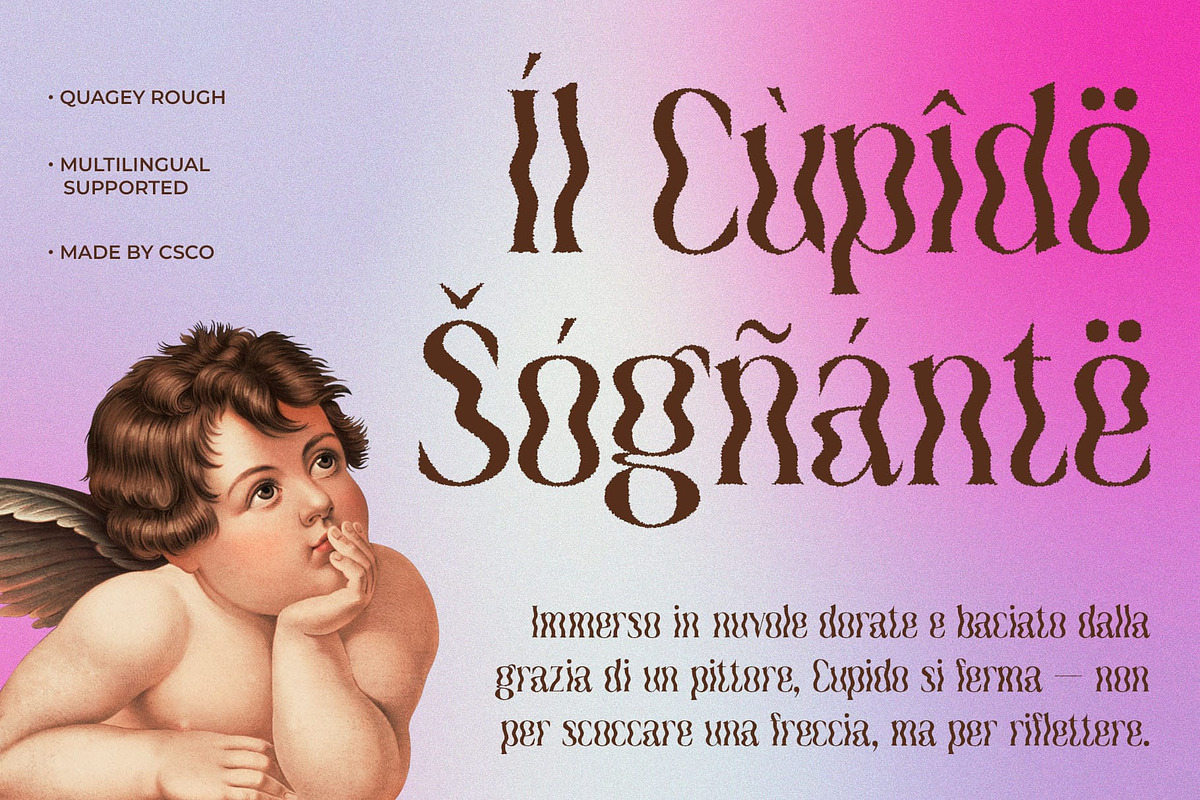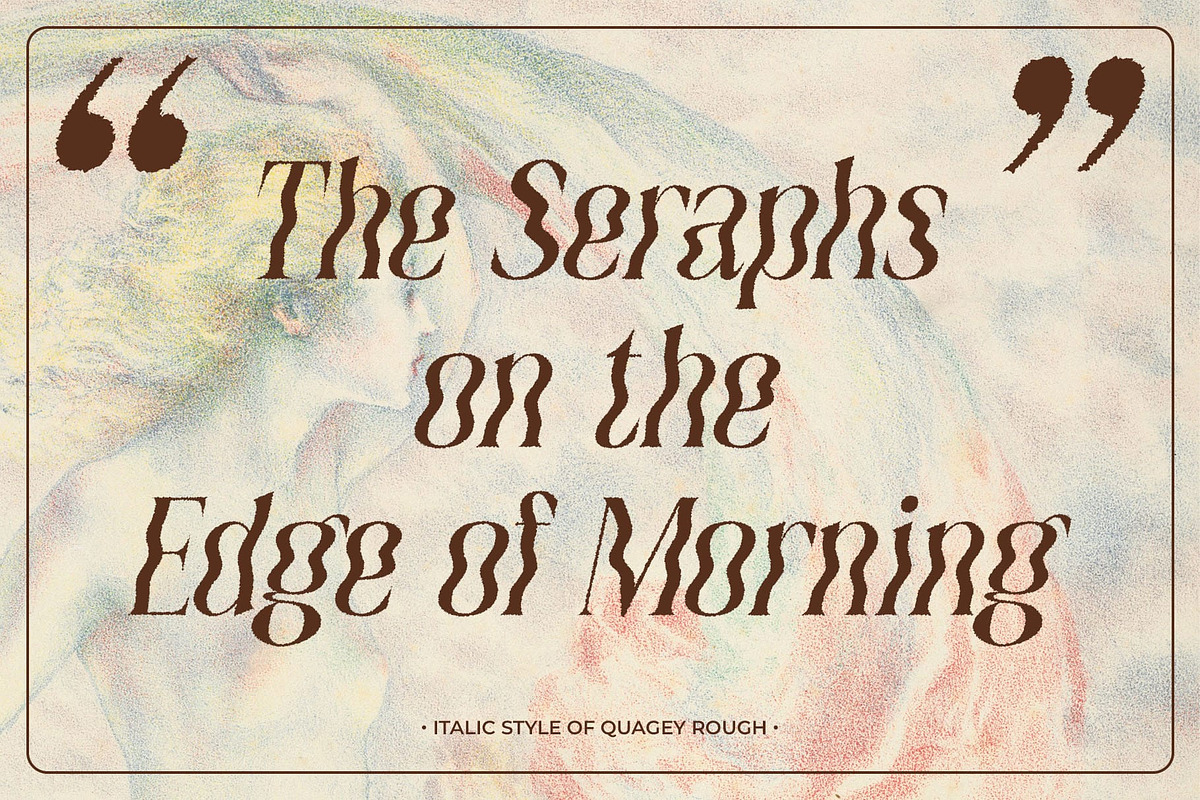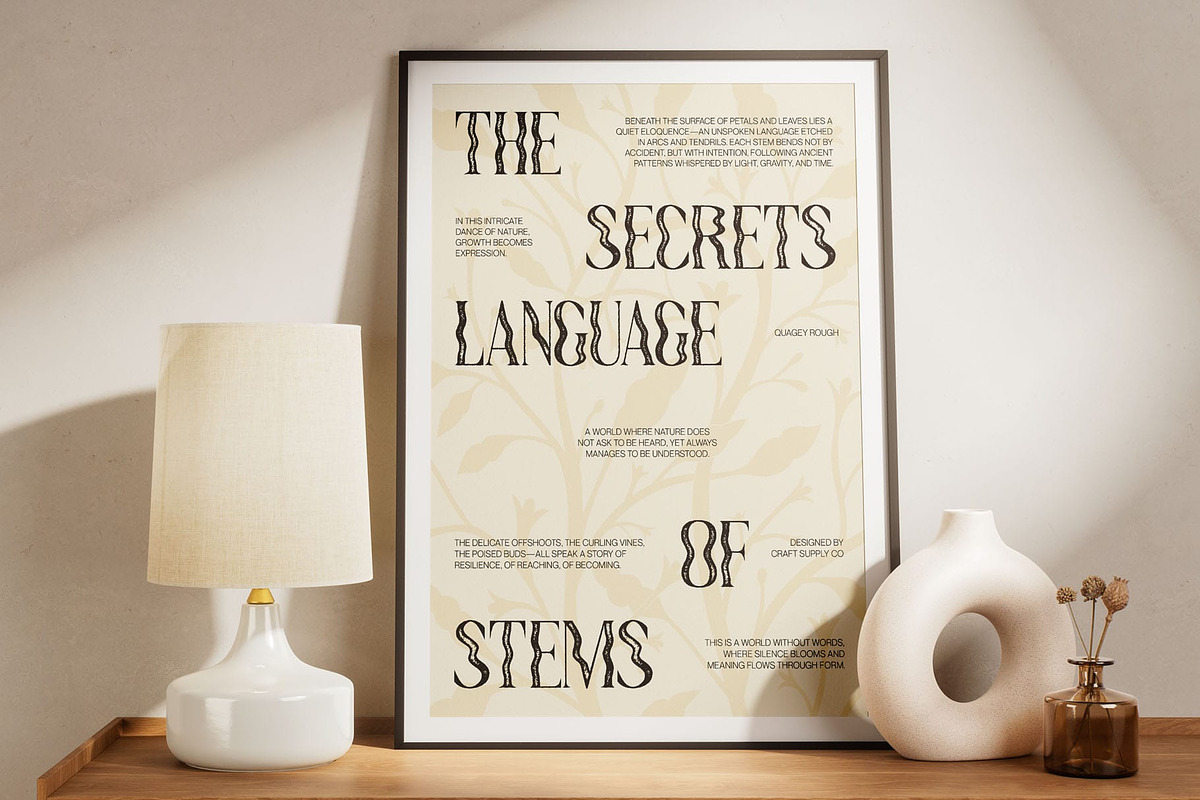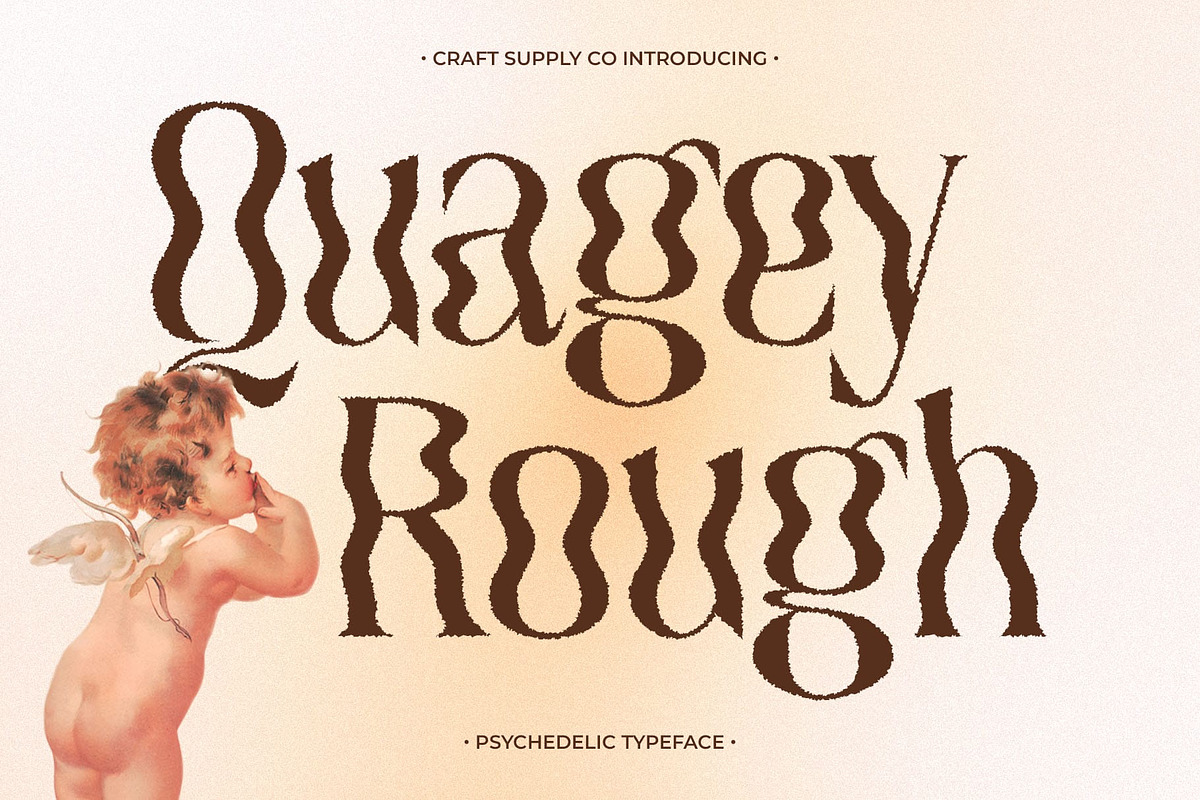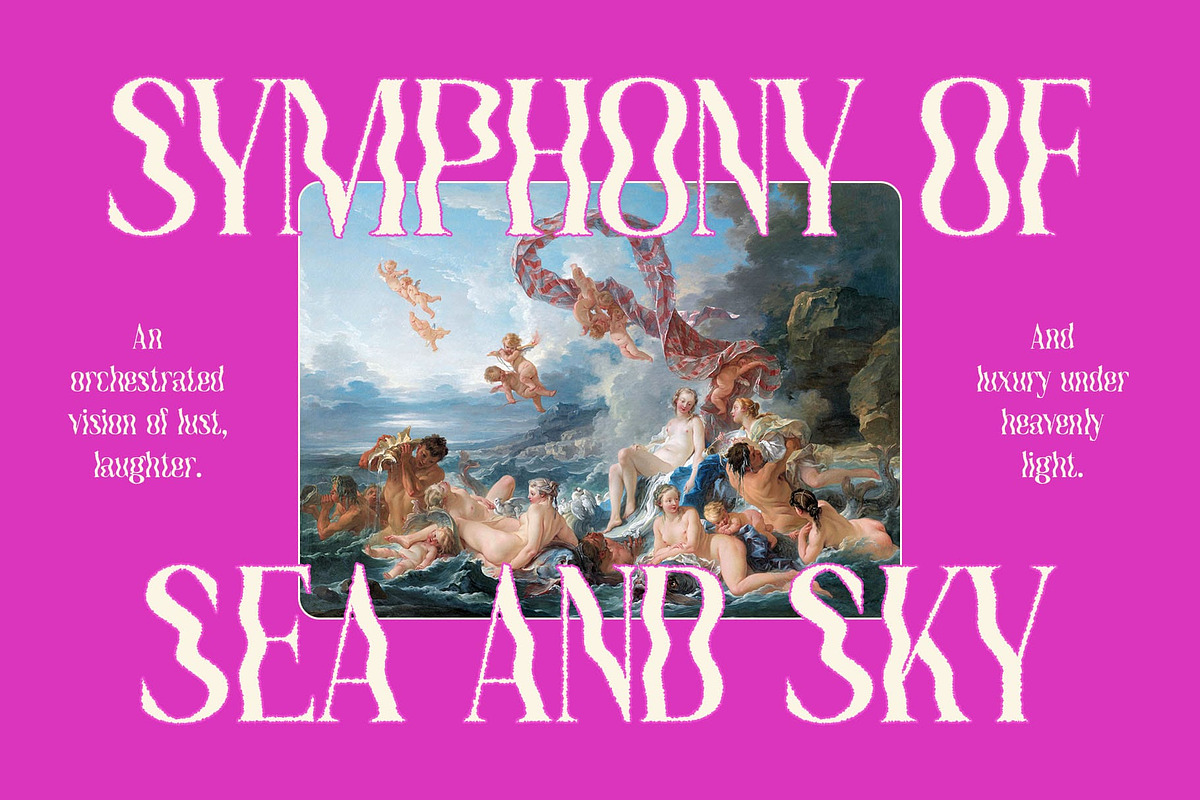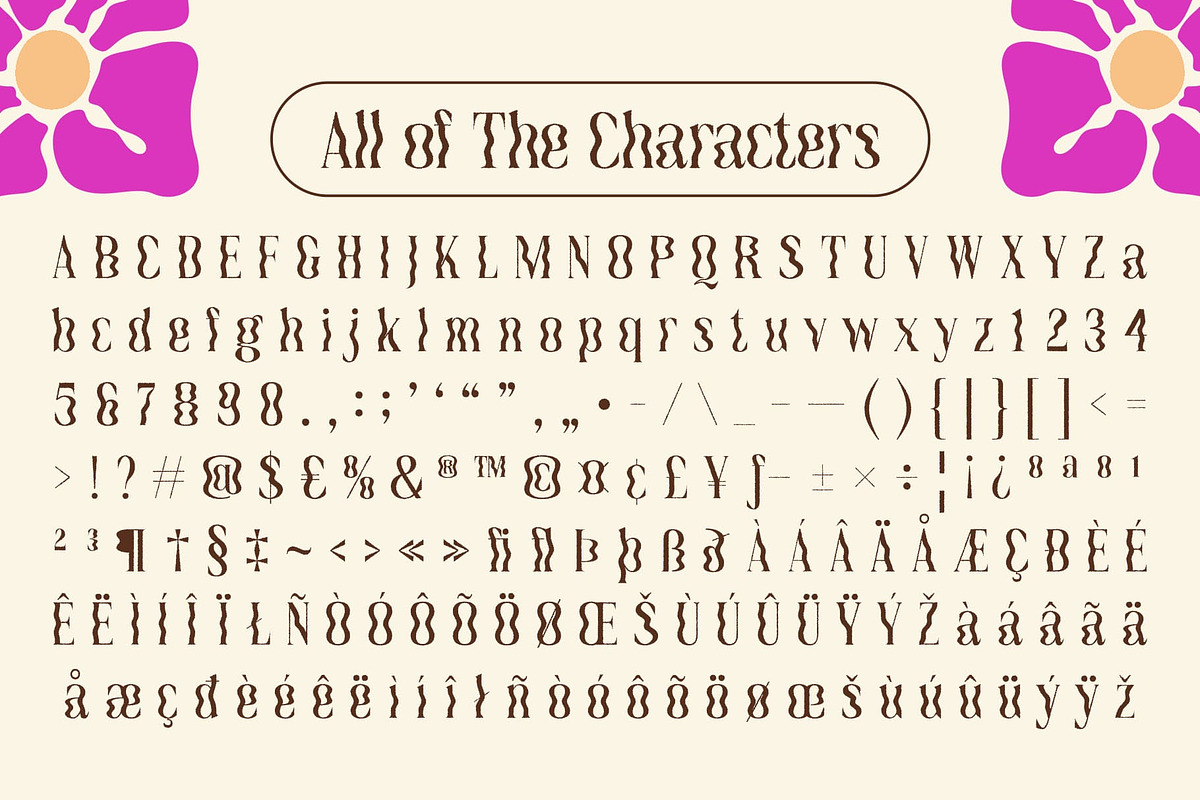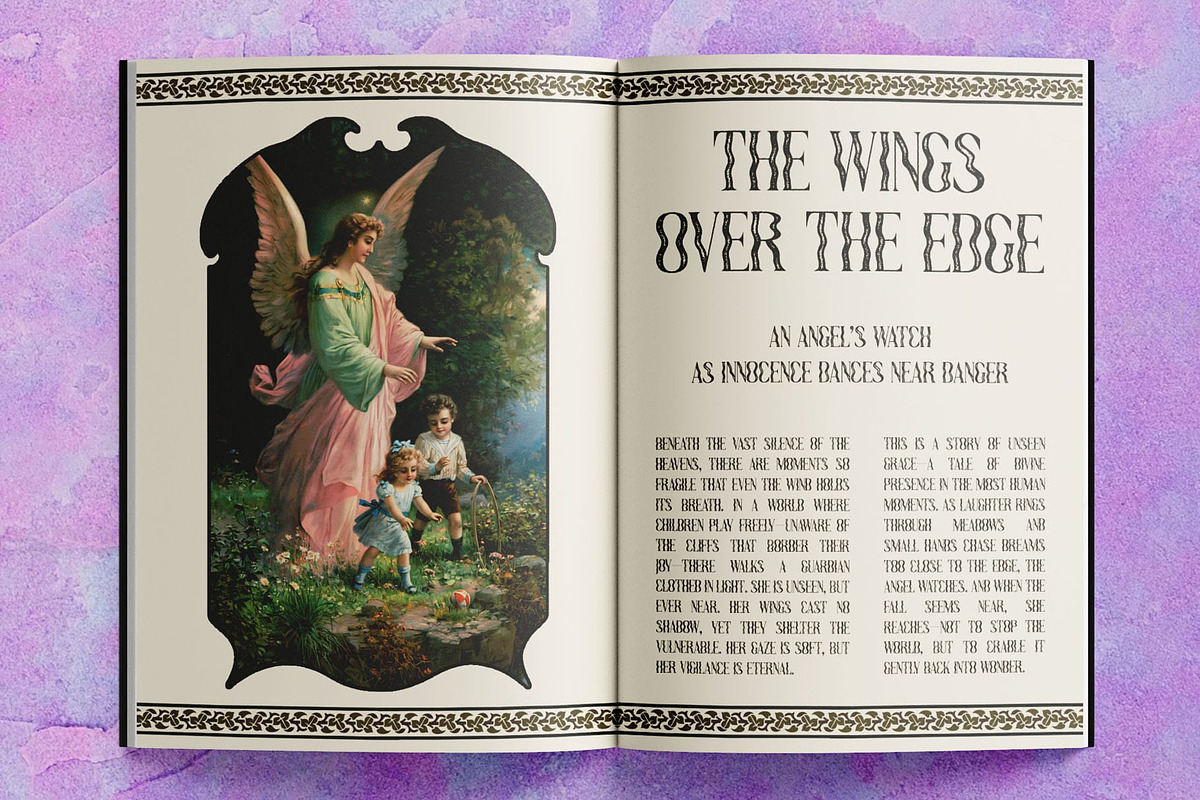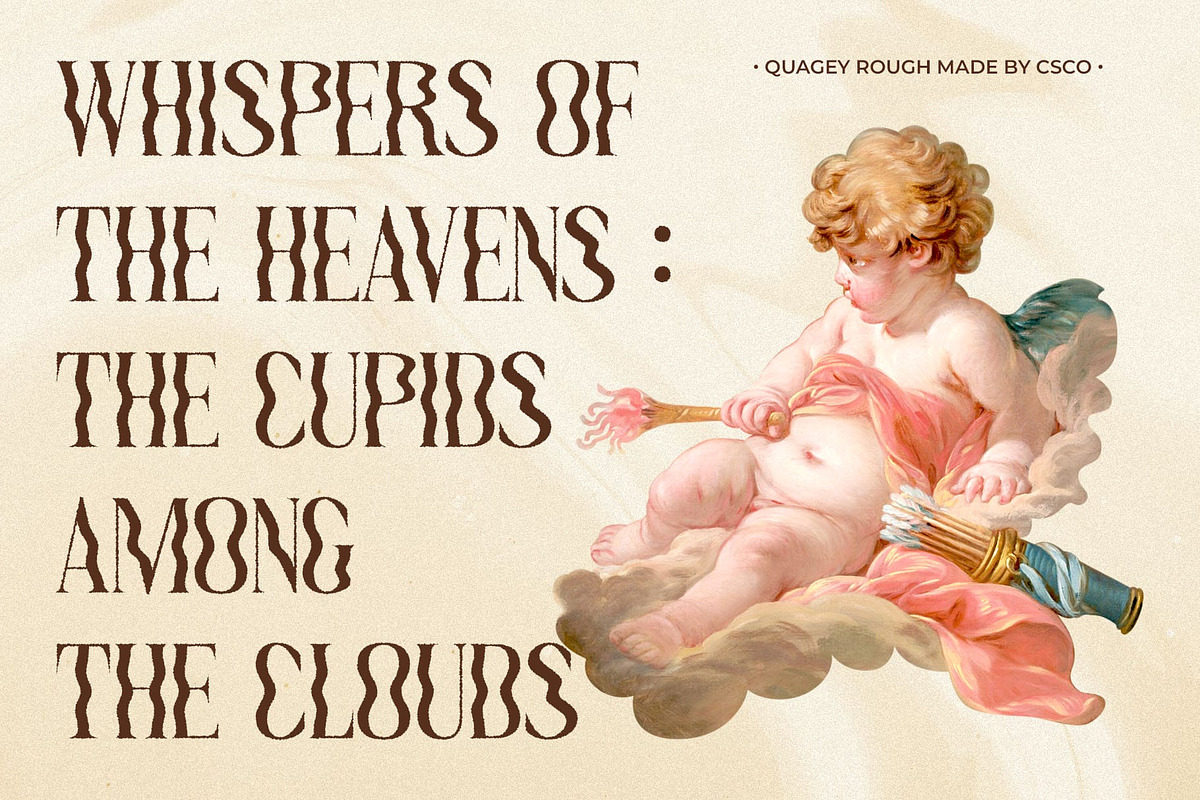
Quagey Rough
Quagey Rough Font – A Psychedelic Display Font with Gritty, Funky Energy
Psychedelic Display Font with Funky Vibes Quagey Rough is a psychedelic display font infused with funky flair and a raw, artistic attitude. Its design embraces the unexpected—featuring warped, irregular letterforms that twist and pulse with rebellious energy. Drawing inspiration from 1960s psychedelia and underground poster art, this font brings a sense of freedom, creativity, and movement to any visual composition.
Rough Texture for Bold Artistic Expression The defining feature of Quagey Rough is its gritty, hand-textured surface. This rough effect adds a tactile, imperfect charm that makes each letter feel authentic, handcrafted, and full of character. It’s a perfect match for designs that embrace distortion, rebellion, and raw visual storytelling, delivering a powerful aesthetic that’s both nostalgic and experimental.
Designed for Eye-Catching, Expressive Projects Whether you’re designing music posters, retro-inspired graphics, zines, experimental artwork, or streetwear branding, Quagey Rough stands out as a bold typographic statement. Its unique voice brings energy to the page and demands attention in the most vibrant way possible.
Perfect for Designers Who Dare to Be Different Quagey Rough isn’t about playing it safe. It’s for creatives who want to push boundaries, challenge conventions, and infuse their projects with a wild, dynamic spirit. Whether you’re working on digital art, vintage themes, or alternative branding, this font amplifies the message with visual impact and attitude.